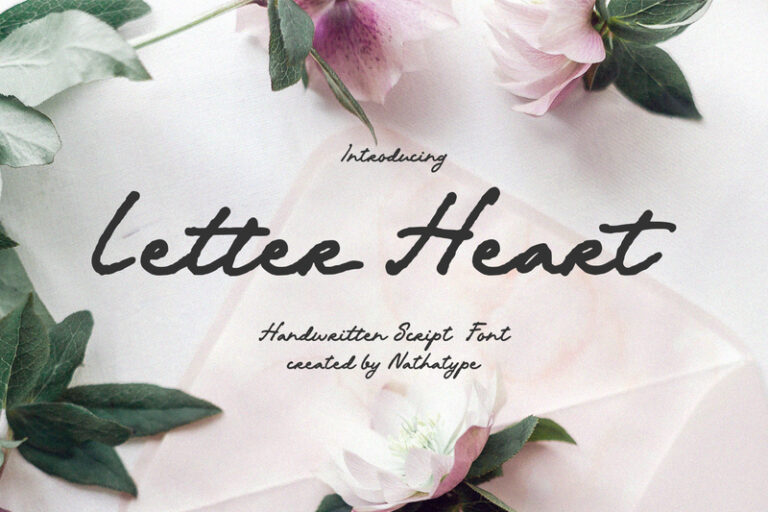
Letter Heart is a beautifully expressive handwritten font. Blending natural cursive flow with a slightly distressed finish, this font captures the emotion of authentic handwriting while adding a raw, artistic edge. If you’re looking for a handwritten script font that feels personal, heartfelt, and a little imperfect in the best way, Letter Heart is the perfect choice. In addition, enjoy the features here.
- Ligatures
- Stylistic Sets
- Multilingual Supports
- PUA Encoded
- Numerals and Punctuations
Letter Heart fits in logos, invitations, quotes, branding, posters, and many more designs. Find out more ways to use this font by taking a look at the font preview.